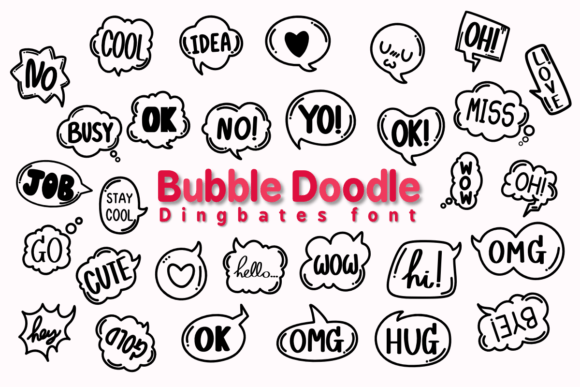
We’ve all been there – staring at a blank canvas, trying to conjure up the perfect idea. But sometimes, all it takes is a dash of creativity and a pinch of fun to get those imagination juices flowing. For designers, the right font can be the key to unlocking that perfect visual vibe. And that’s where the Bubble Doodle Font comes in – a delightful and playful font that’s sure to add a touch of whimsy to your designs.
This charming font is filled with cute speech bubbles, each one a unique character that’s perfect for adding a personal touch to your messages and graphics. Whether you’re working on a children’s book, a social media campaign, or a personal project, the Bubble Doodle Font is a valuable tool for any designer looking to make their text stand out.
Bubble Doodle Font Key Features
- Font Family: Bubble Doodle Font offers a unique, playful font style that is perfect for creative projects.
- Unique Characteristics: The Bubble Doodle Font features a distinctive, rounded design with a mix of bold and thin lines, creating a visually appealing and eye-catching effect.
Bubble Doodle Font Review
I recently had the chance to work with the Bubble Doodle Font, and I must say, it’s a unique and playful addition to any design project. ✨ One of the things that stands out about this font is its whimsical nature. It’s perfect for creating eye-catching headings or adding a touch of fun to body text.
- Wide range of variations: The font comes in different weights and styles, making it easy to find the perfect fit for your design.
- Creative possibilities: The Bubble Doodle Font is perfect for creating custom icons, patterns, or graphics that add an extra layer of depth to your design.
- Fun and playful: This font is sure to bring a smile to your face and add a touch of personality to your design.
However, I do have a few concerns about the font’s limitations. ⚠️ The Bubble Doodle Font may not be the best choice for formal or professional designs, as it can come across as too casual or playful. Additionally, some of the characters may not be as legible as others, which could lead to readability issues.
Overall, I think the Bubble Doodle Font is a great addition to any designer’s toolkit, but it’s essential to use it in the right context. With its unique style and wide range of variations, it’s perfect for creating fun and playful designs. Just be mindful of its limitations, and you’ll be sure to get the most out of this versatile font.
Bubble Doodle Font: A Practical Application Guide
To get the most out of the Bubble Doodle Font, try using it in combination with other design elements, such as illustrations and graphics. You can also experiment with different font sizes and colors to create a unique look.
The Bubble Doodle Font is commonly used for creating playful and whimsical designs, such as children’s books, party invitations, and social media graphics. It’s also a great font for adding a touch of personality to your designs.